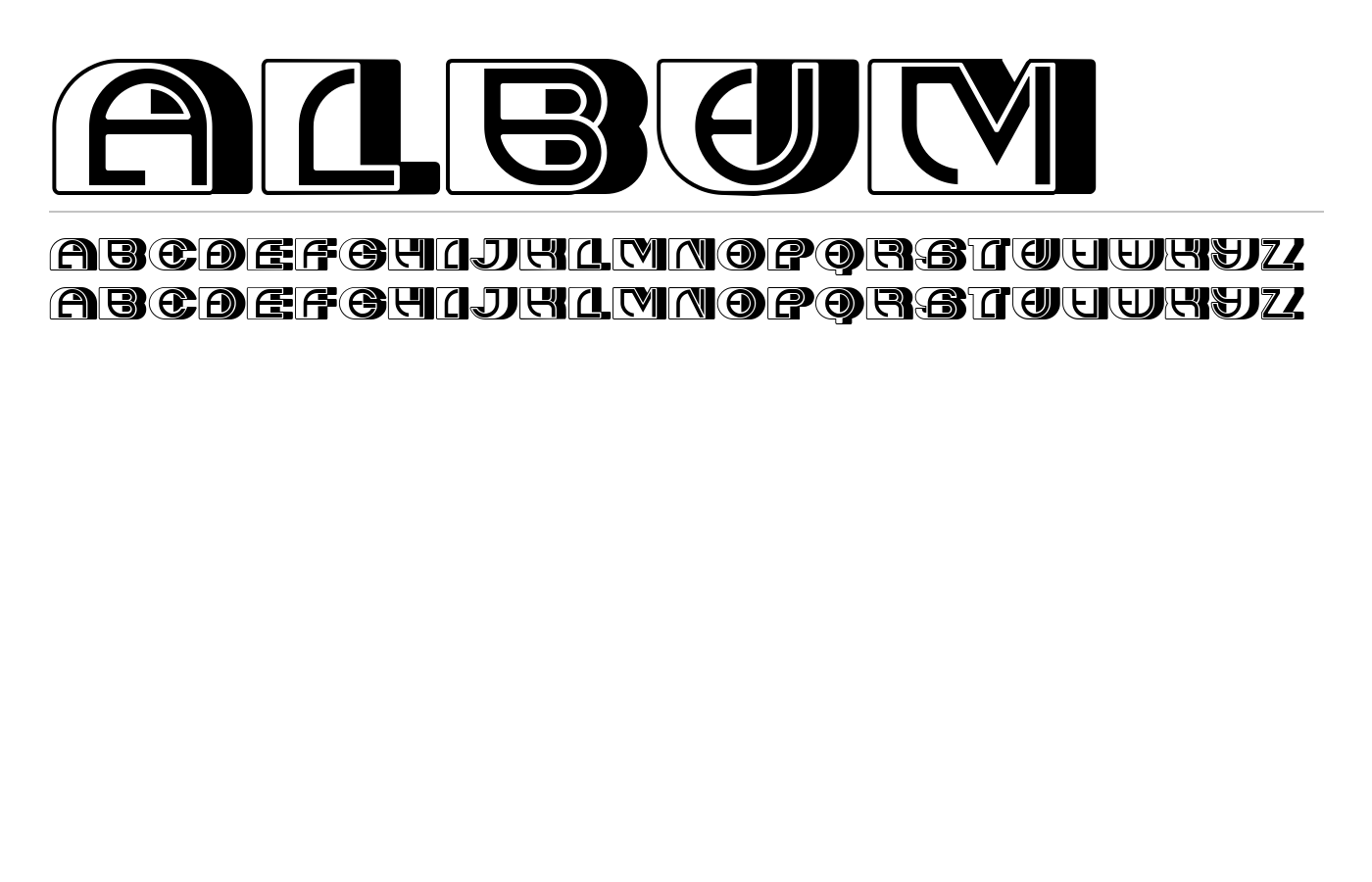
Album Font is a bold, geometric sans serif with a distinct modern and playful character. Its strong contrast between thick and thin strokes combined with outlined letterforms and unusual shapes make it perfect for eye-catching headlines, logos, and creative packaging where a unique, retro-futuristic vibe is desired. This font shines in designs that want to convey originality and artistic flair while maintaining clear legibility.
Album Font
About Album Font